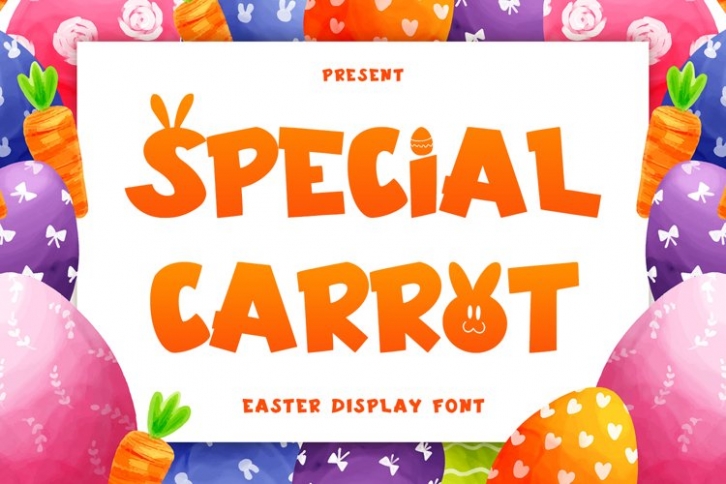
Special Carrot is a beautiful font that was designed by plusstore. It's a great choice for designers and creatives who need such a font. It was released on July 17, 2021 and the file size is 12.7 MB. Special Carrot may give a more youthful, expressive and casual look to your project. It is a very beautiful, refined, elegant, and high-quality font.